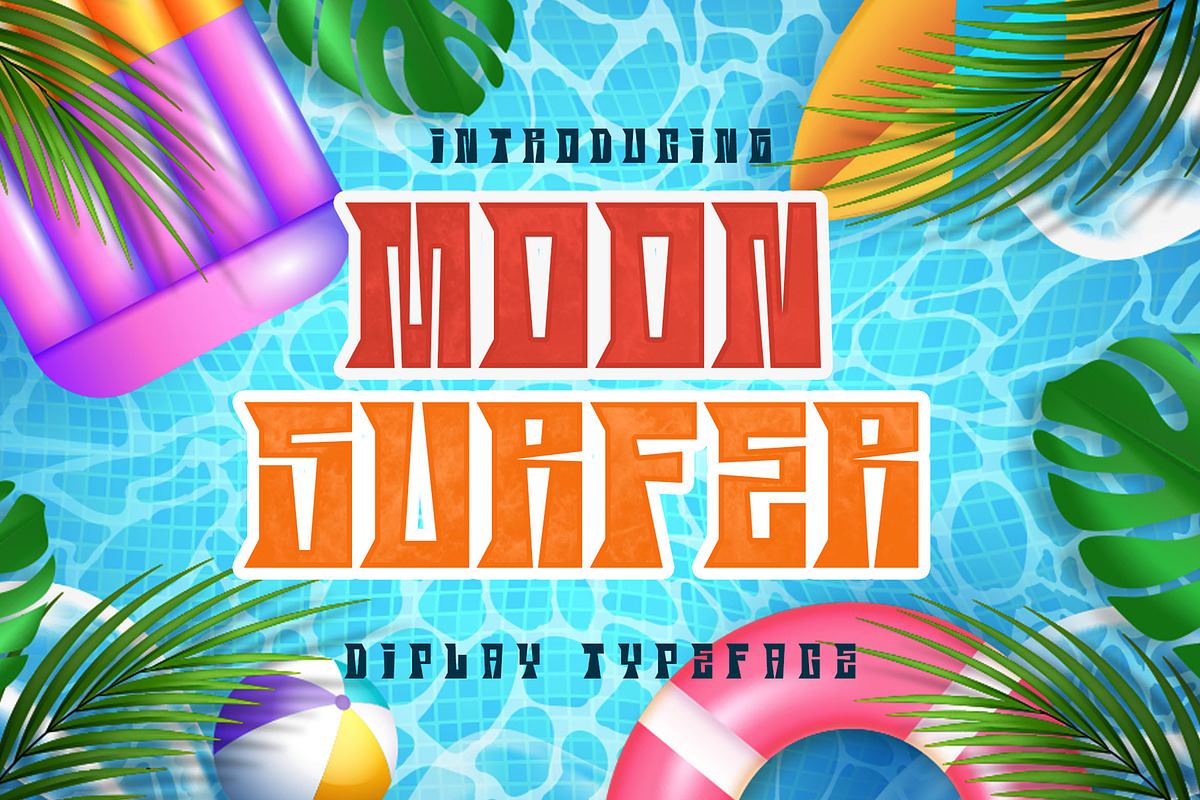
Moon Surfer Comic Display Font Free Download
Moon Surfer Comic Display Font Free Download is a fun, bold, and energetic typeface inspired by the playful spirit of comic books and surf culture. With its exaggerated letterforms, unique style, and adventurous vibe, Moon Surfer is perfect for creating eye-catching posters, comic book titles, product packaging, branding, and any project that needs a bit of flair and fun.
This font captures the essence of both retro comics and carefree beach vibes, making it ideal for projects that need to stand out with personality and creativity. Whether you're designing a surf shop logo, comic strip, or promotional material for an event, Moon Surfer brings a lively, whimsical touch to your typography.